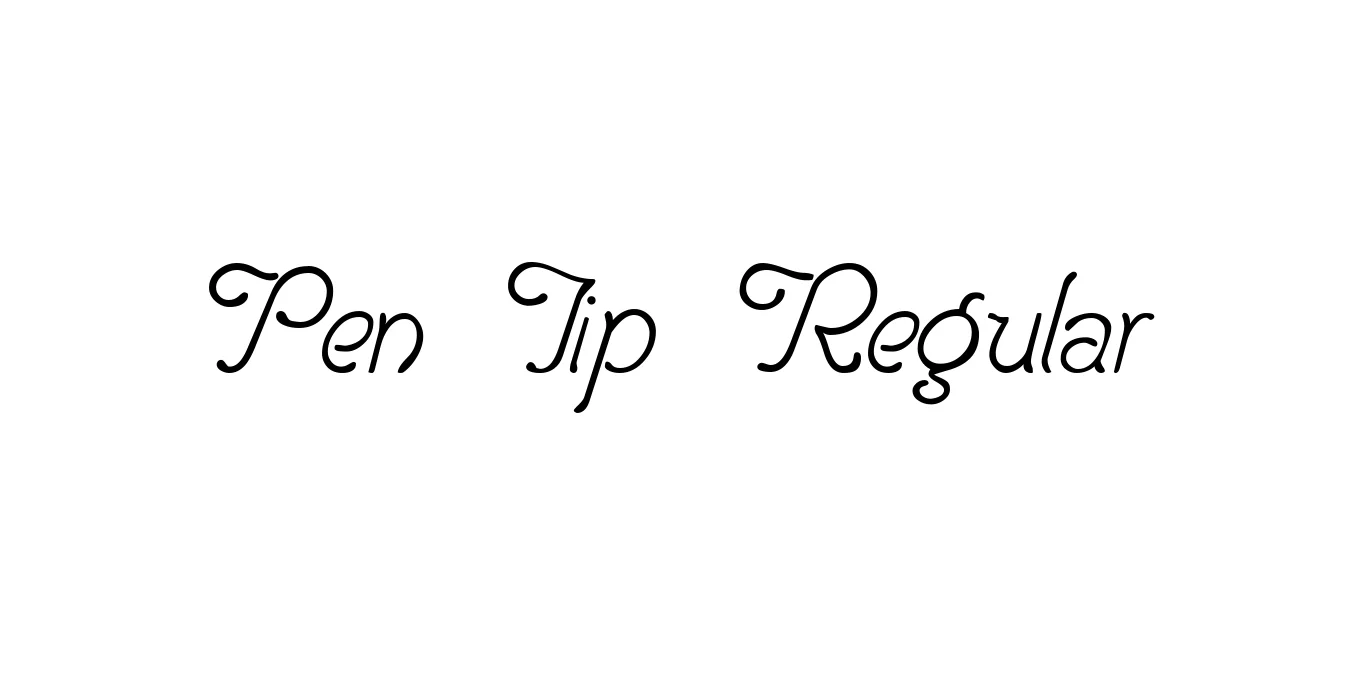
Pen Tip Regular
Designed by Vunira Design
| Category | Handwritten / Script |
| Designer | Vunira Design |
Pen Tip Regular is an elegant and authentic handwritten script font designed to mimic the natural, flowing movement of a pen tip on paper. Its organic curves and rhythmic stroke variations create a sense of intimacy and personal connection, making it stand out from more rigid digital typefaces. This font captures the essence of modern calligraphy, offering a clean yet sophisticated look that is perfect for contemporary design projects.
Technical precision meets creative flair in Pen Tip Regular, which includes a comprehensive set of characters that maintain readability while providing a unique flair. It is highly effective for high-end branding, promotional materials, and artistic layouts. Whether used in print or digital formats, this typeface brings a professional, handcrafted aesthetic that elevates the visual storytelling of any creative endeavor.
Pen Tip Regular Best Uses
Perfect for creating intimate and personalized wedding invitations or RSVP cards.
Ideal for boutique logos and signature-style business marks.
Excellent for aesthetic quote graphics and lifestyle blog headings.
Works beautifully as a watermark for professional photography portfolios.